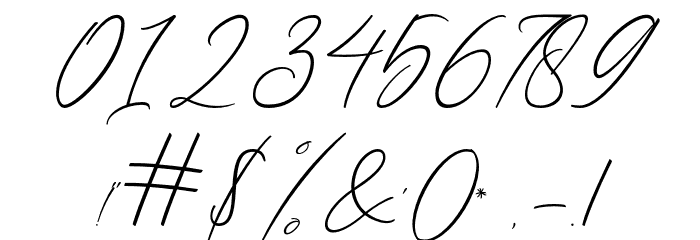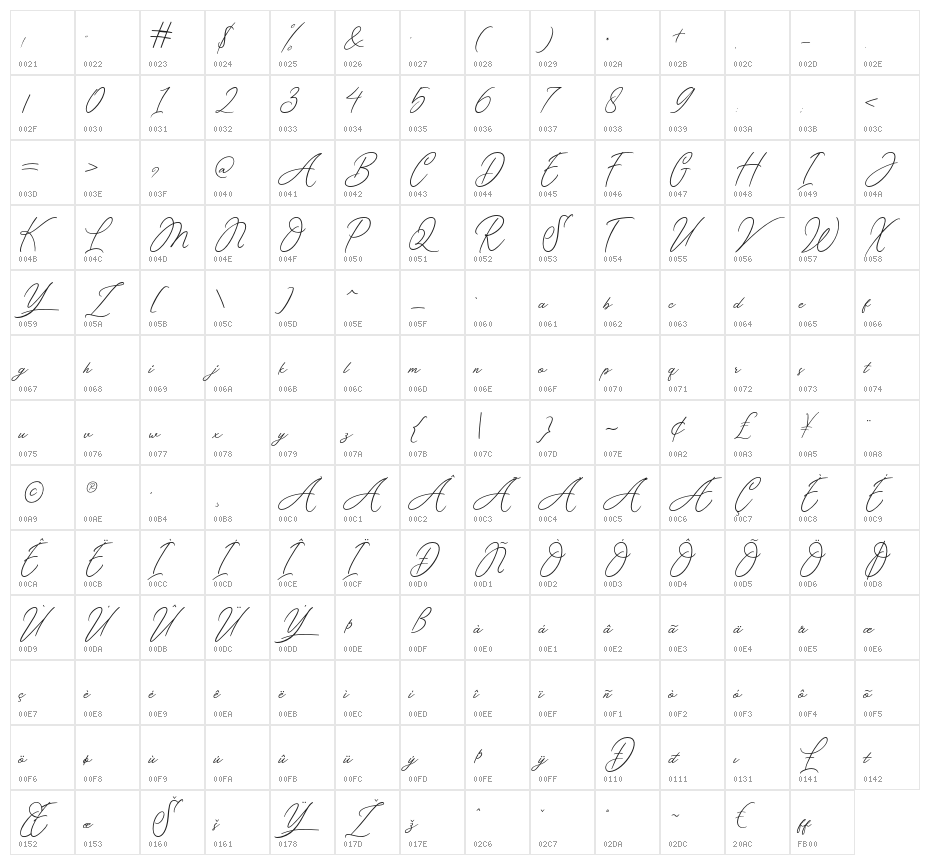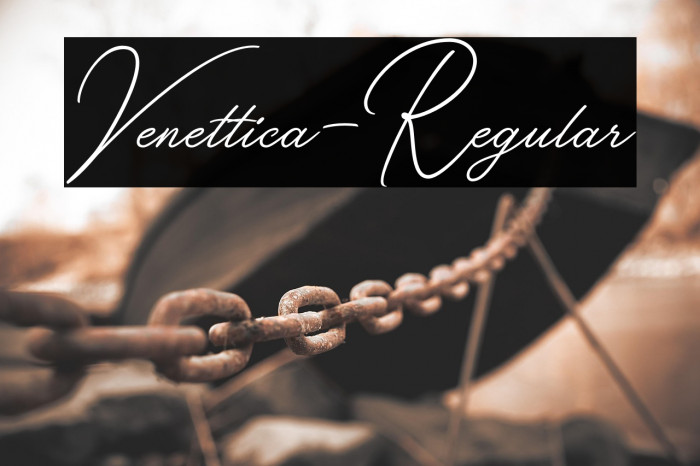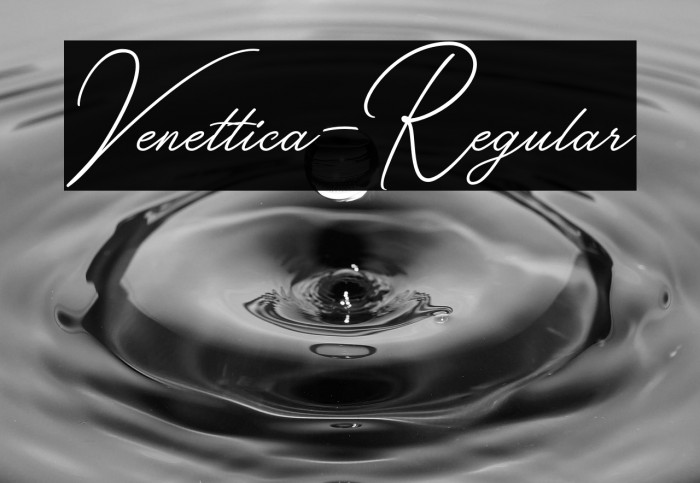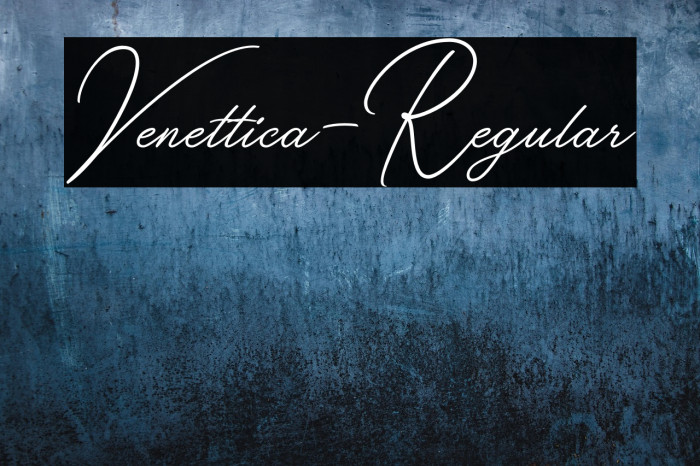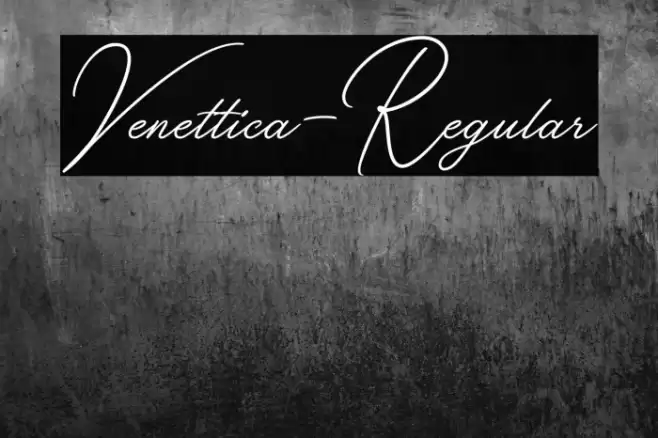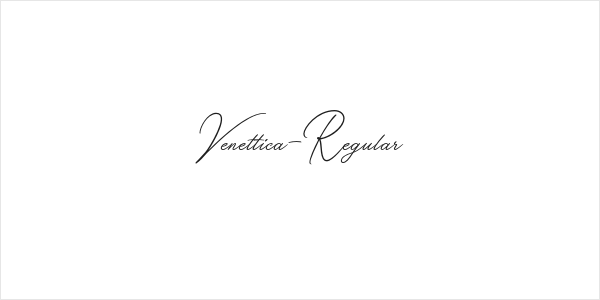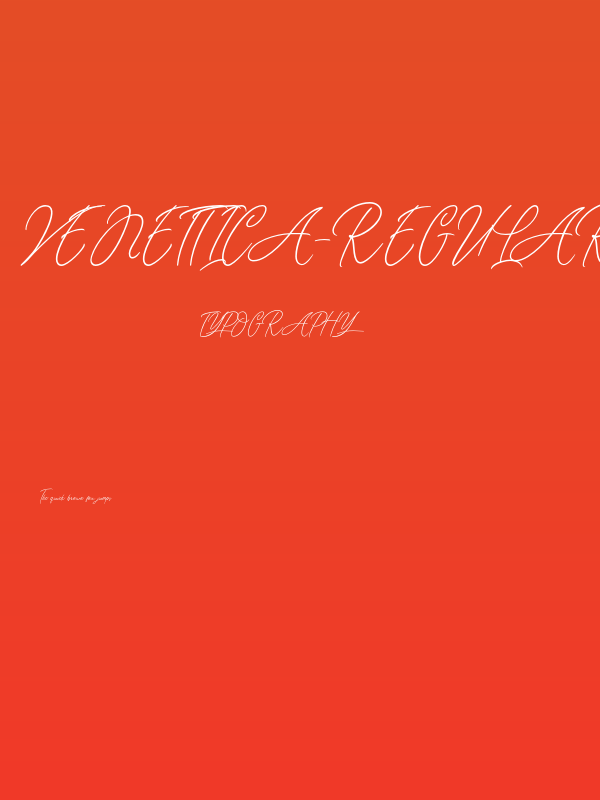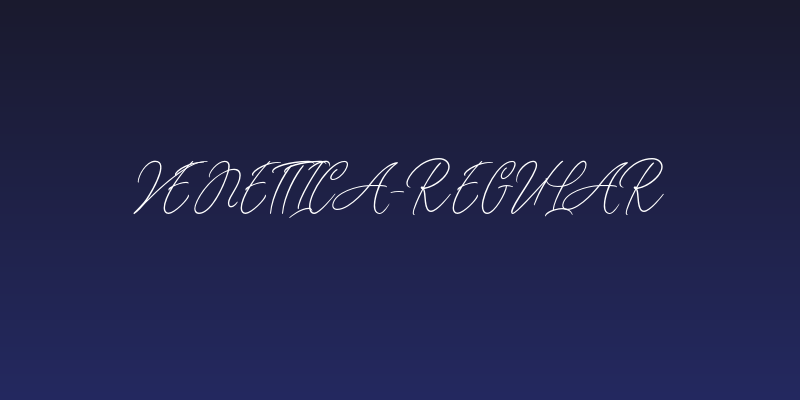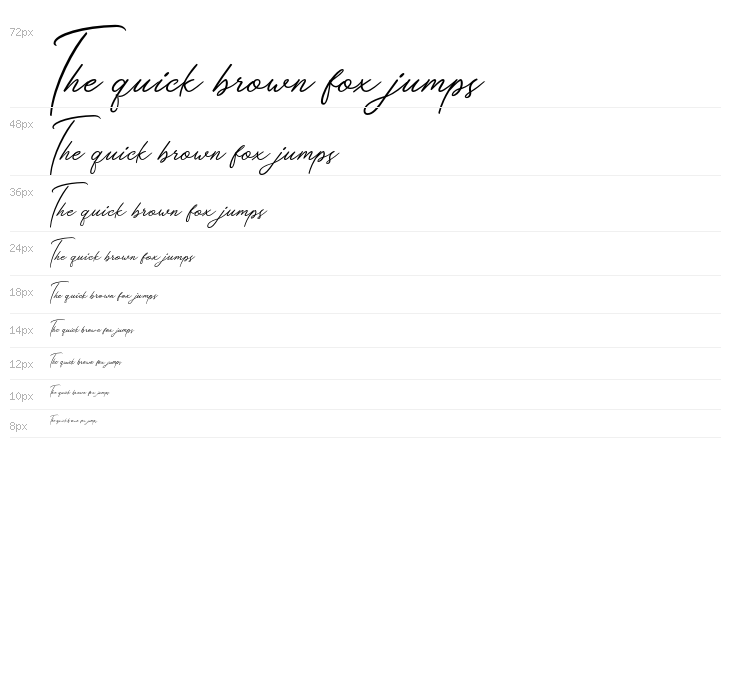
Venettica-Regular Font
Venettica-Regular Description
This elegant script font features fluid, cursive strokes that emulate the natural flow of handwriting. The uppercase letters are gracefully elongated with sweeping curves, while the lowercase letters maintain a consistent, flowing style. The numerals and special characters are designed to complement the overall aesthetic, with a delicate balance between formality and artistic flair. The font's thin lines and smooth connections give it a refined and sophisticated appearance, making it ideal for projects that require a touch of elegance and personal expression.